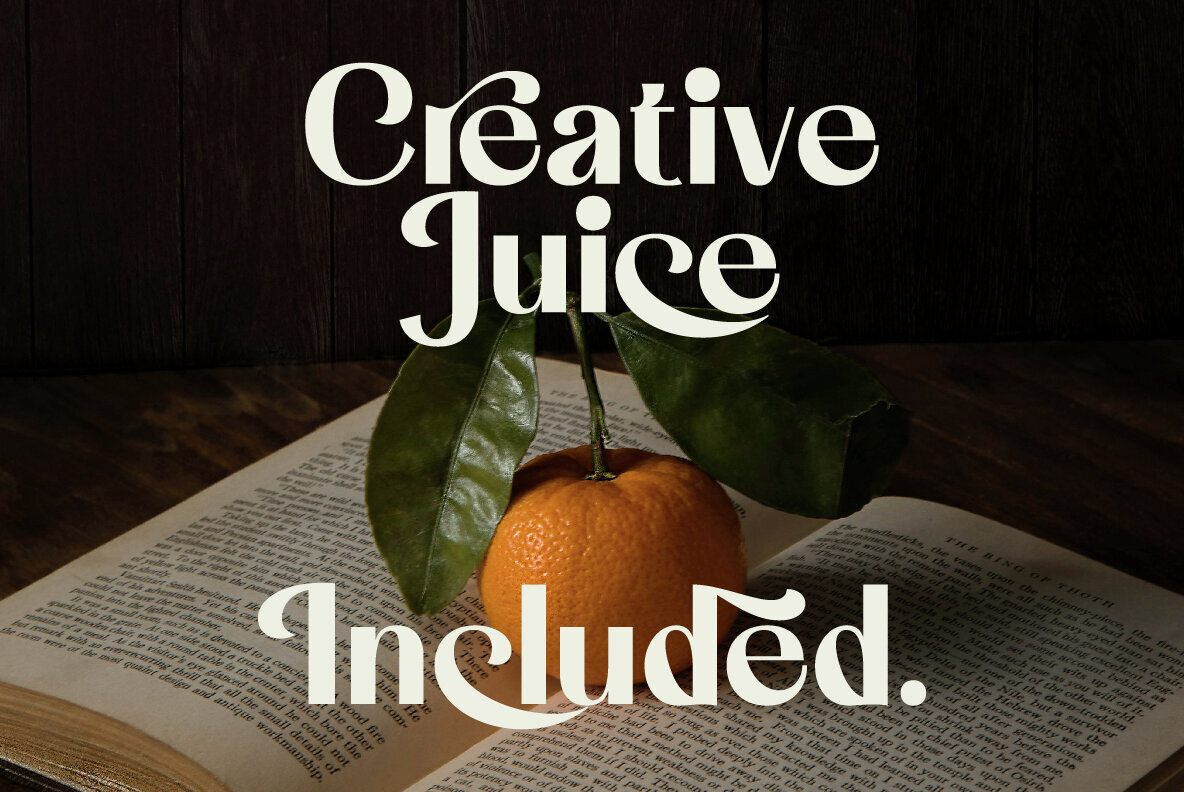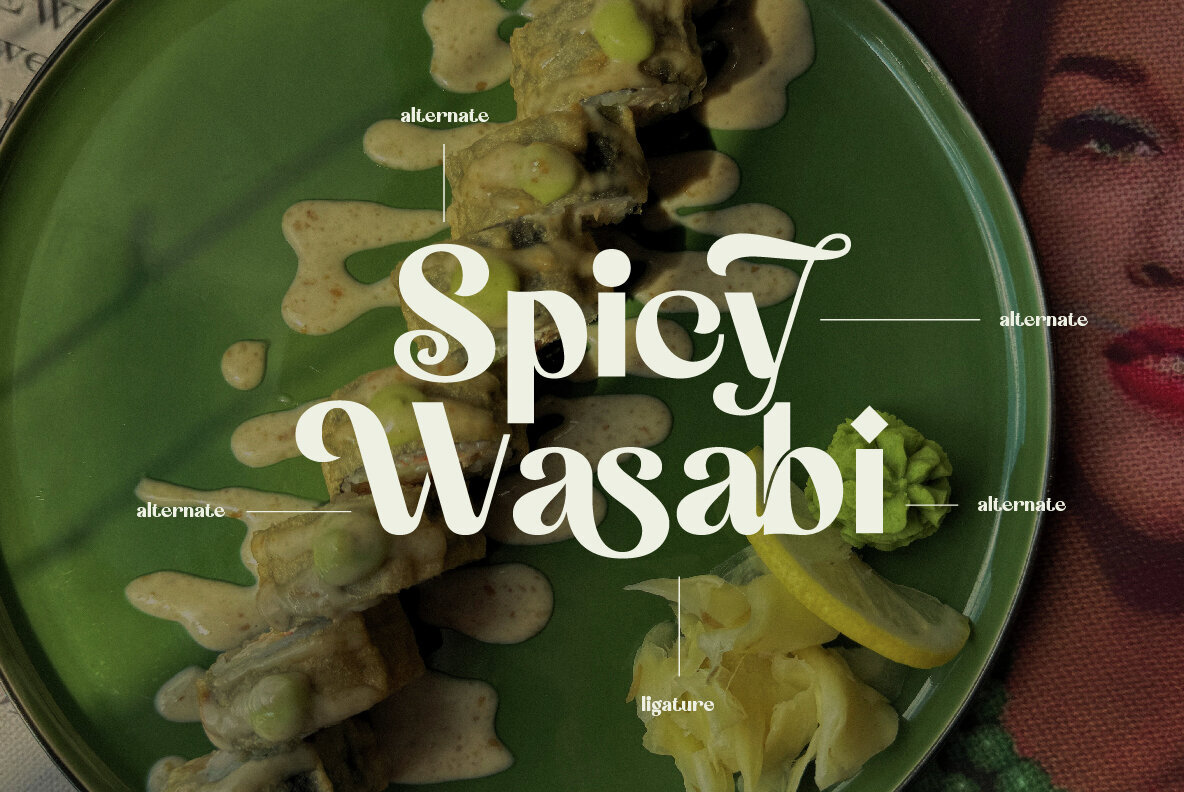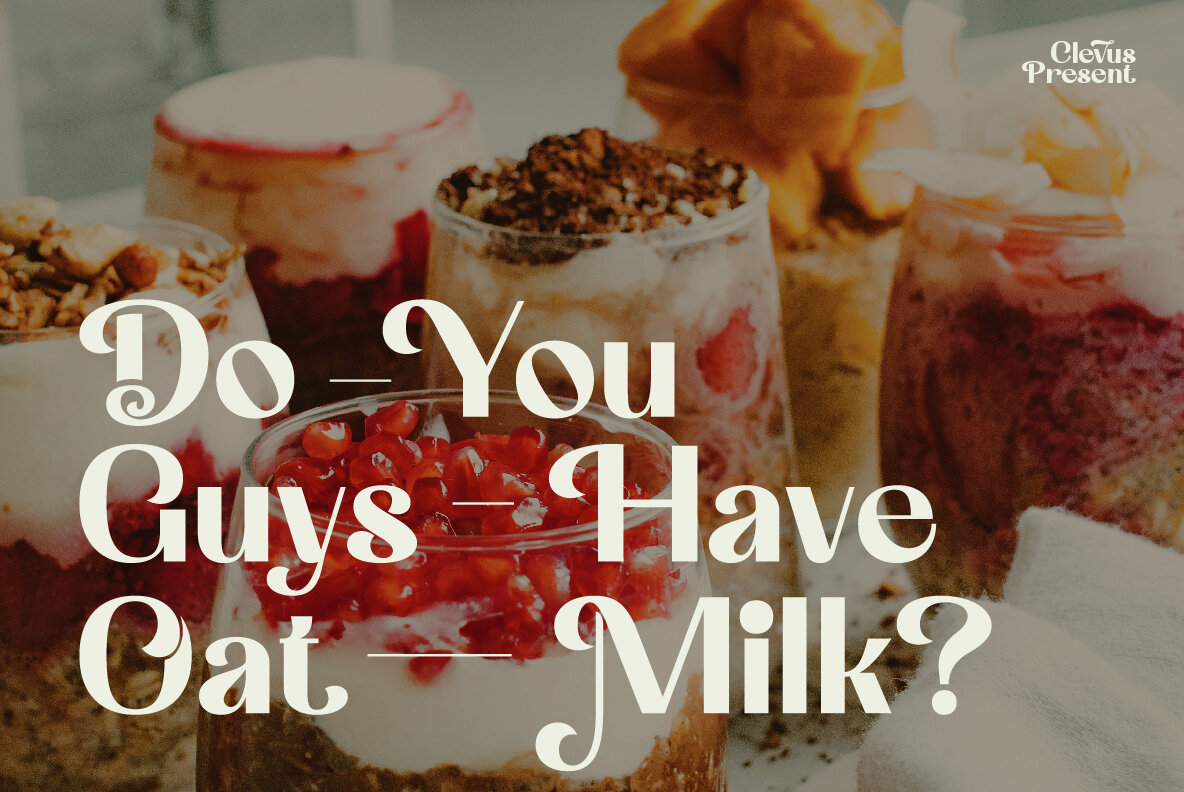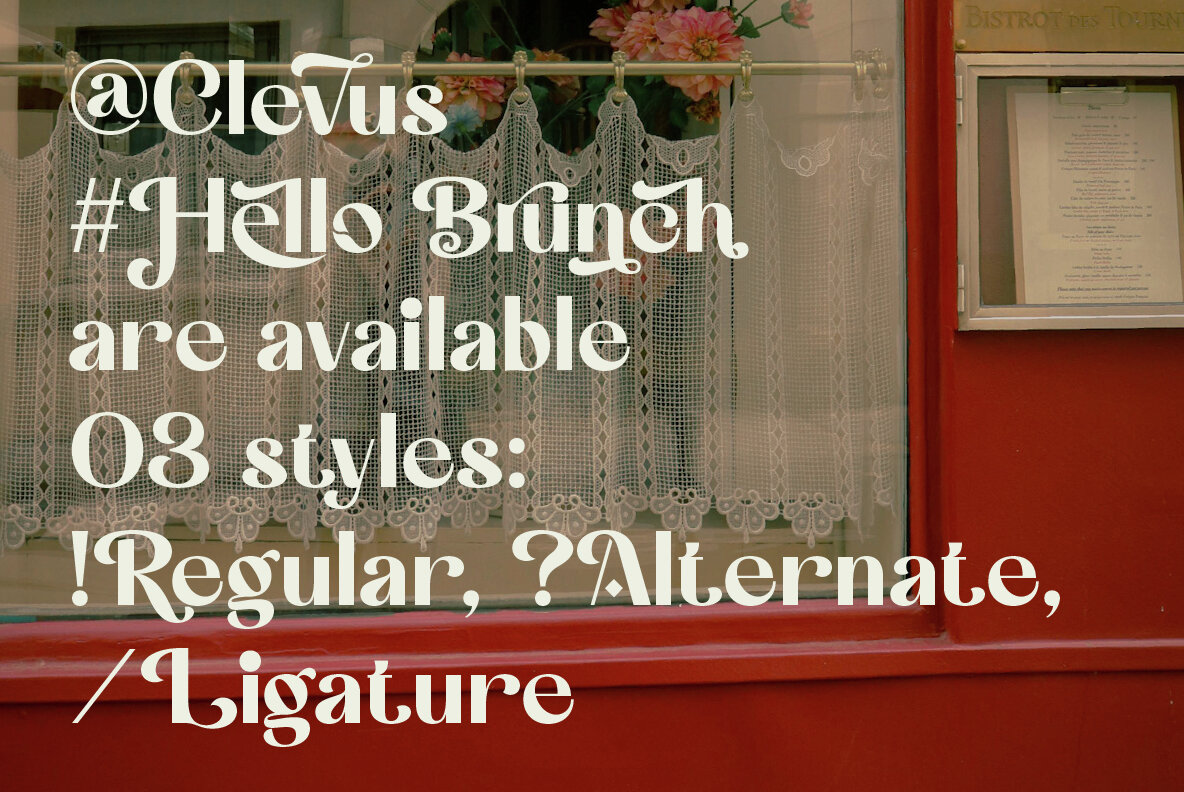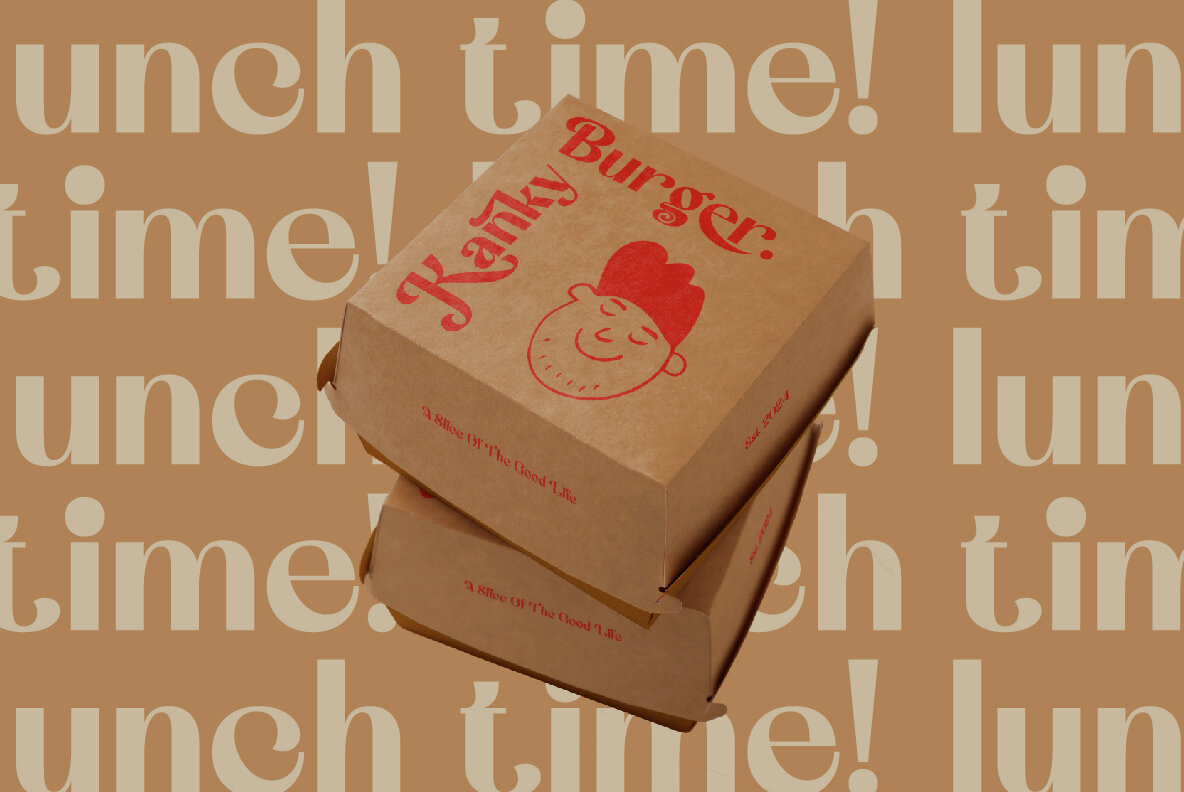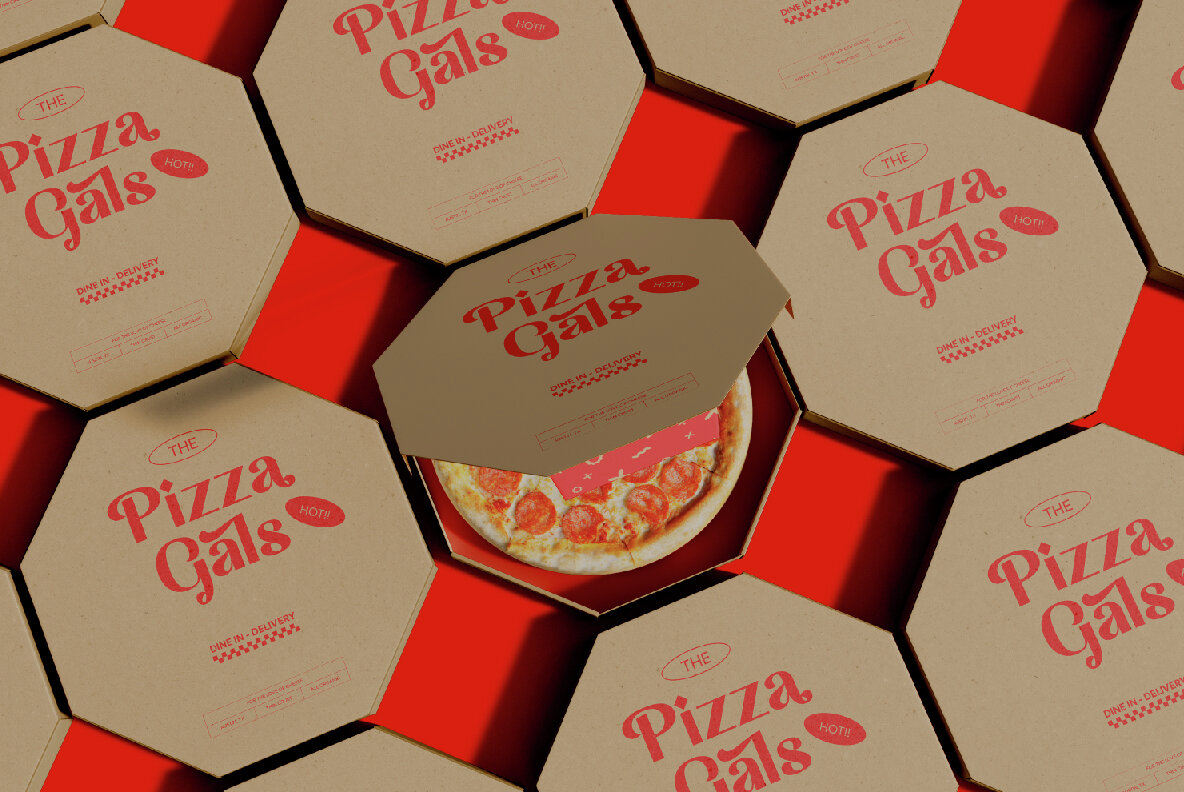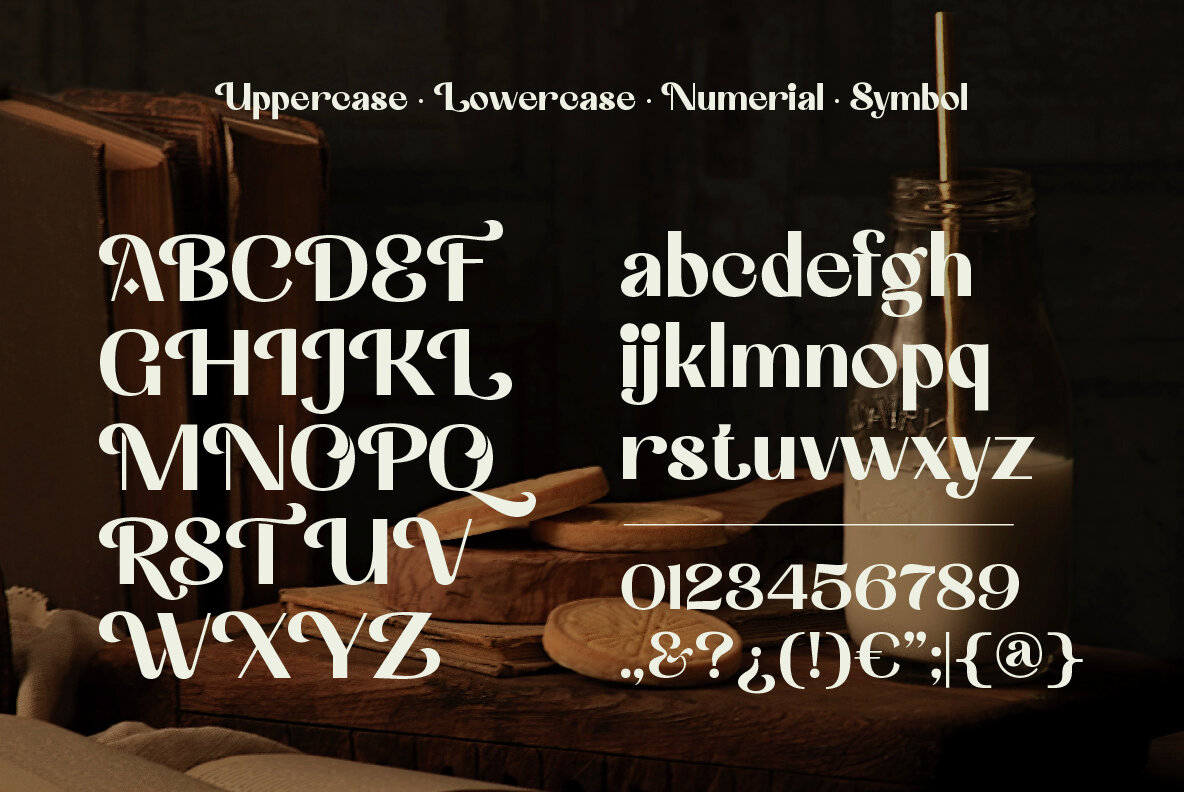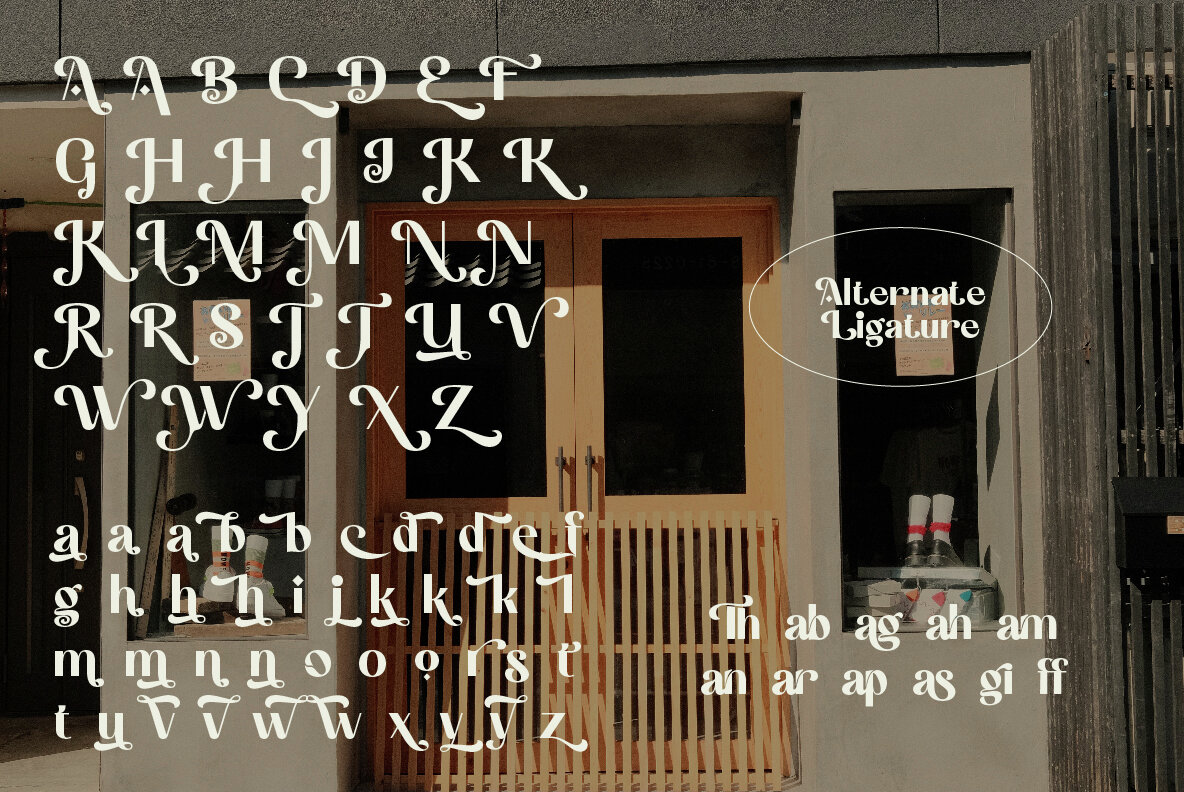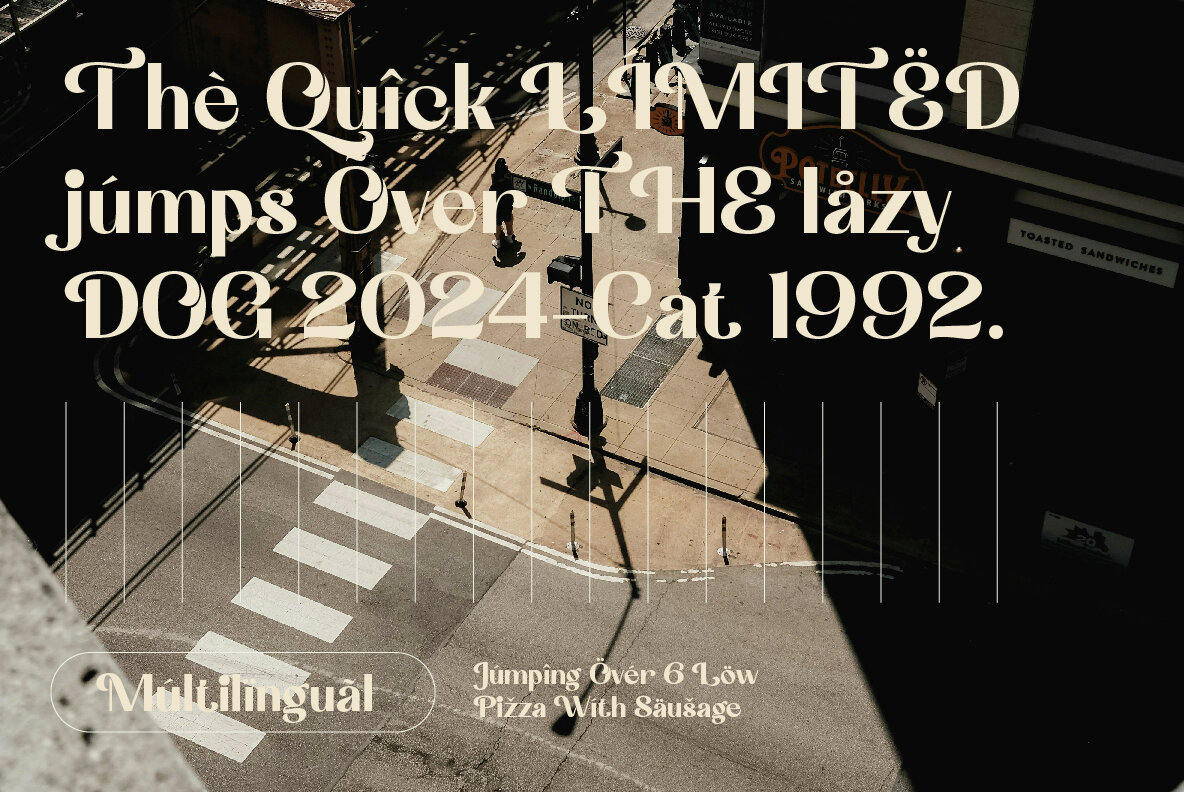
Hello Brunch Font
Hello Brunch Regular
Hello Brunch is a captivating typeface that combines a retro-inspired aesthetic with an elegant sans serif style. Its regular characters, alternates, and ligatures make it versatile for various design projects, bringing a touch of nostalgia to vintage designs. Ideal for creating timeless logos, editorial layouts, and posters, Hello Brunch exudes sophistication and charm through its graceful curves and classic letterforms, providing a refined yet approachable look.
This typeface includes a comprehensive character set featuring letters, numbers, symbols, punctuation, as well as alternates and ligatures. It's user-friendly, requiring no special software, and is compatible with any basic program or website app, including Canva. Hello Brunch also offers extensive multilingual support, covering languages such as Danish, English, Estonian, Finnish, French, German, Italian, Spanish, and many more. Embrace the retro elegance of Hello Brunch to infuse your designs with timeless appeal.